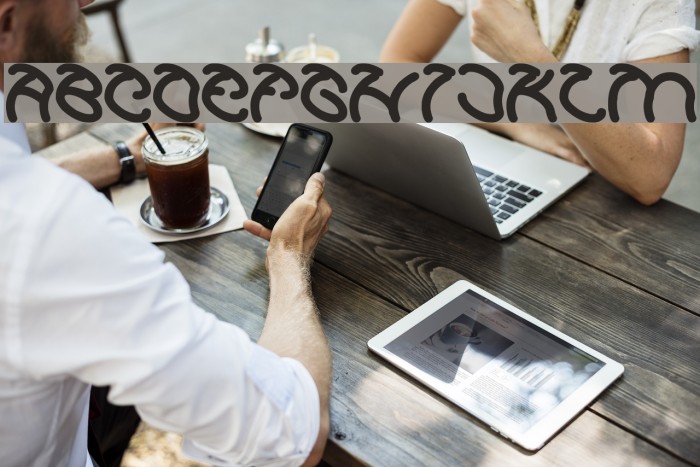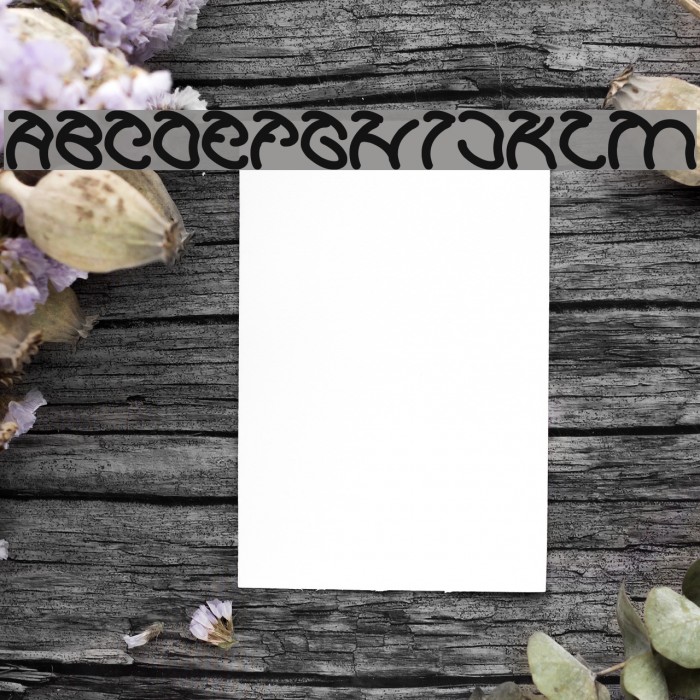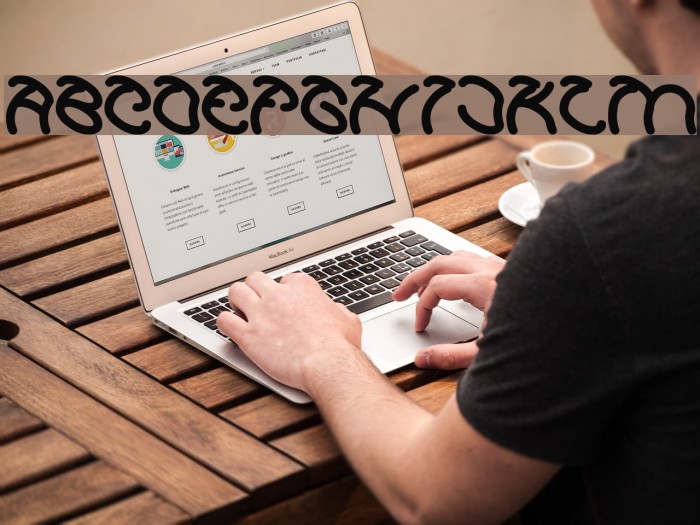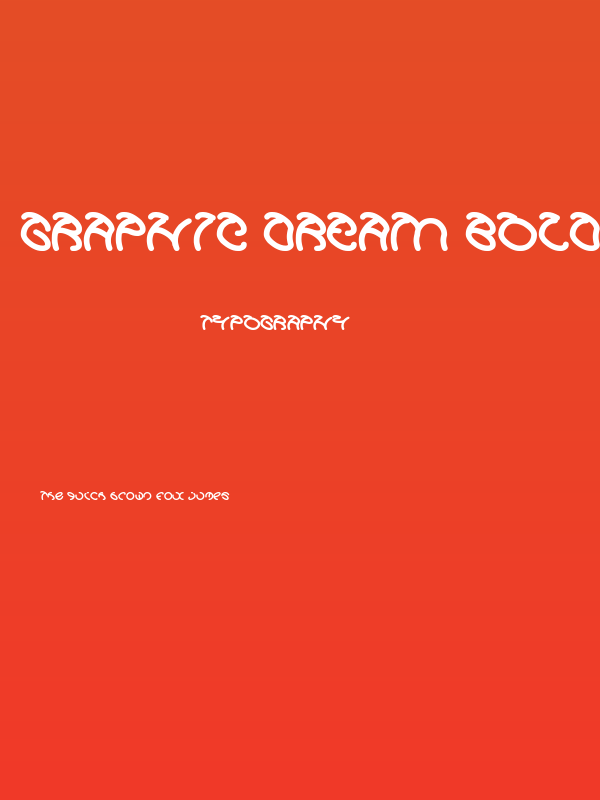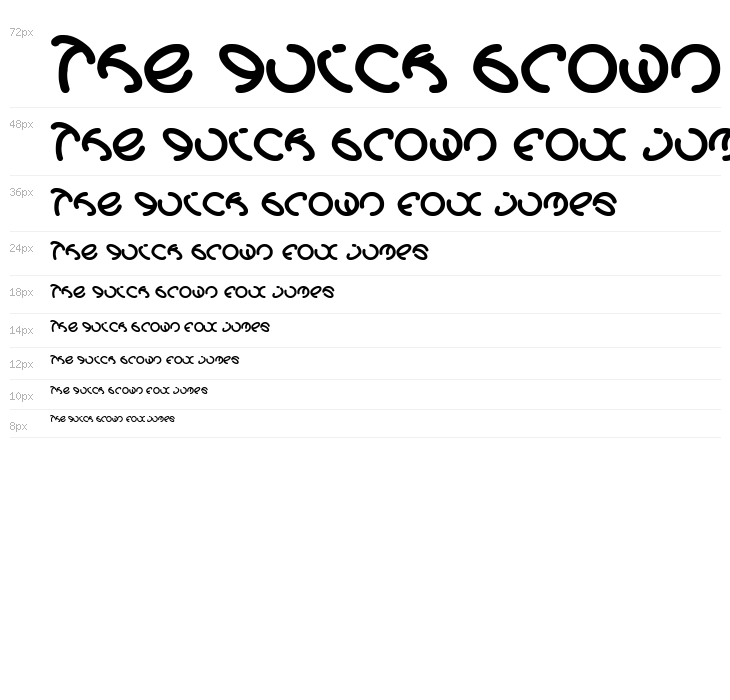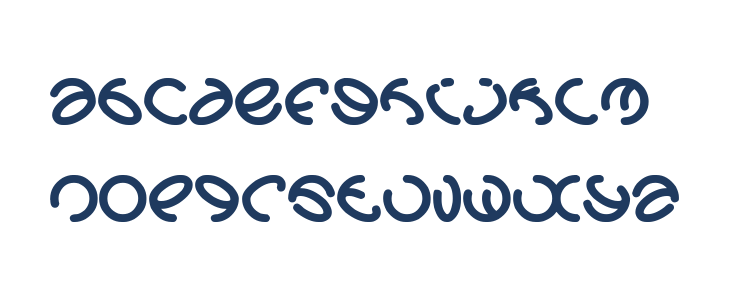
Graphic Dream Bold Font
Graphic Dream Bold Description
This font features a bold and playful design with a unique, rounded style. The characters are thick and have a whimsical, almost cartoon-like appearance, making them stand out with a sense of fun and creativity. The strokes are consistent in thickness, contributing to a cohesive look across all characters. The font's design includes smooth curves and rounded edges, giving it a friendly and approachable feel. It is well-suited for projects that require a touch of personality and flair, such as children's books, playful branding, or creative posters.
| Proposed Projects | Ideal for children's books, playful branding, creative posters, and any project needing a fun, approachable style. |